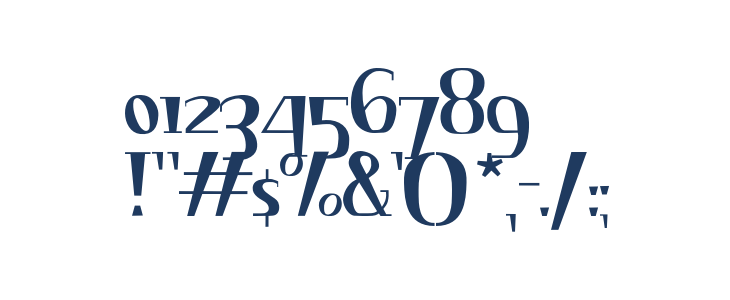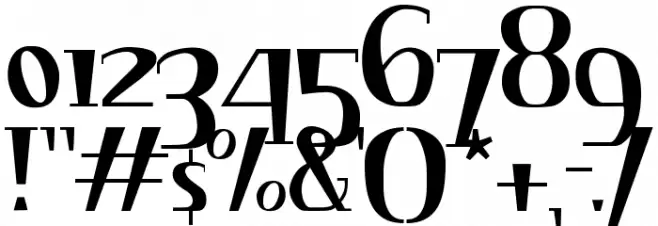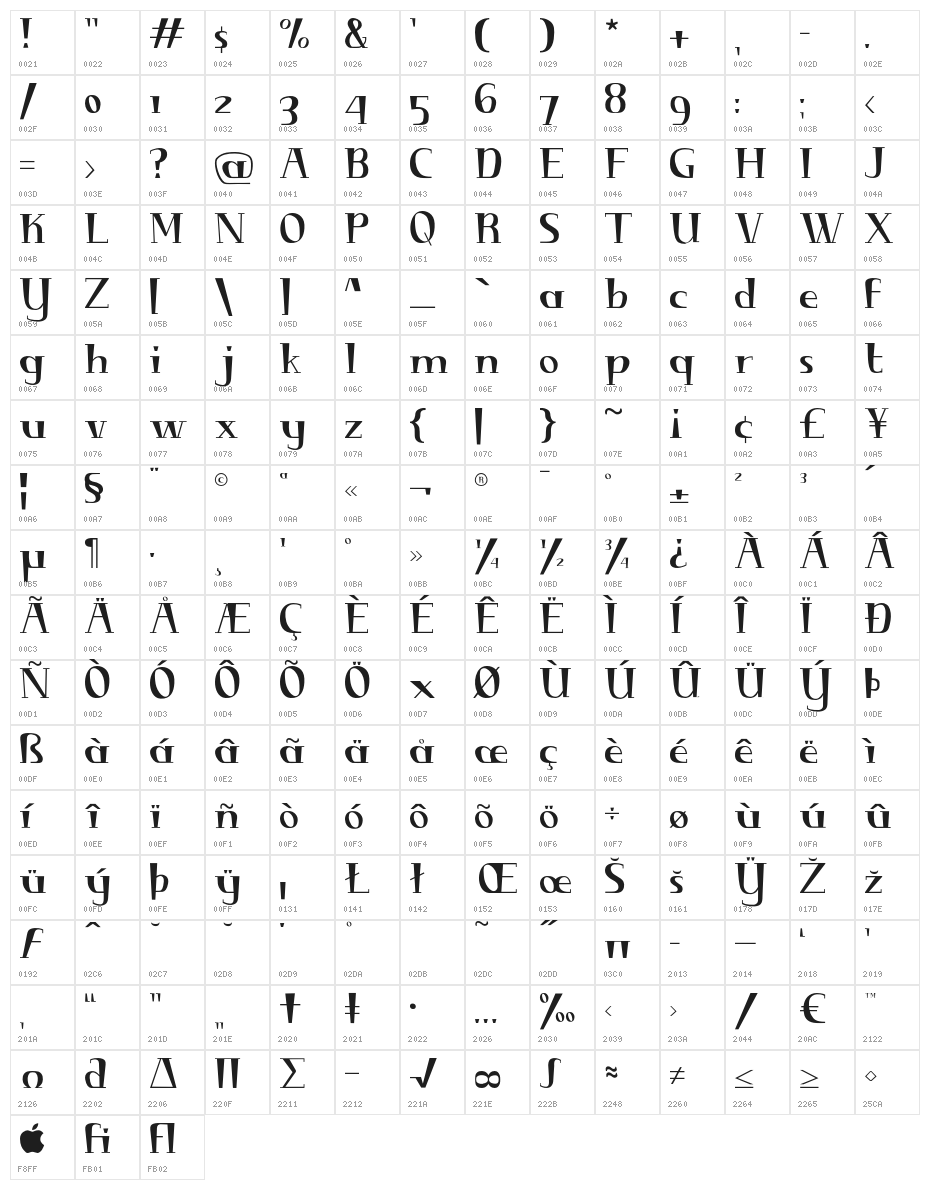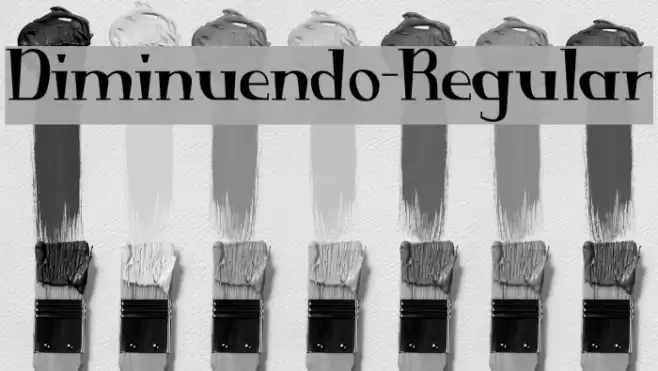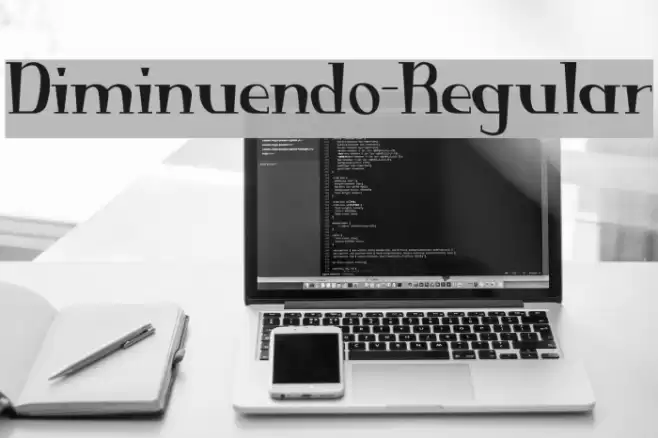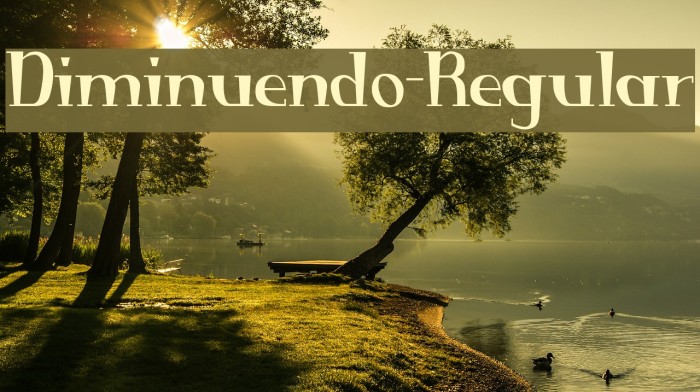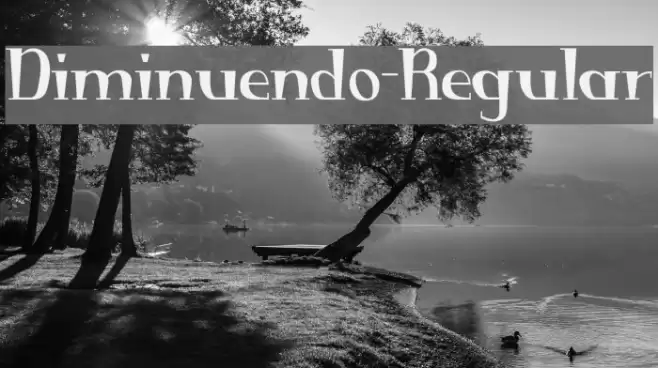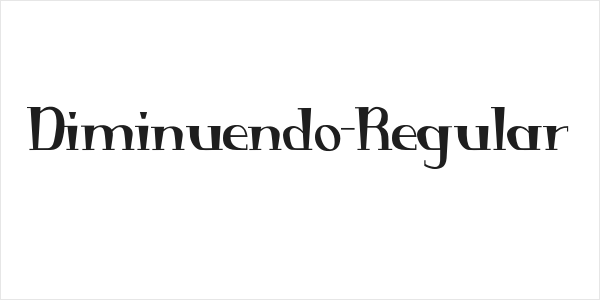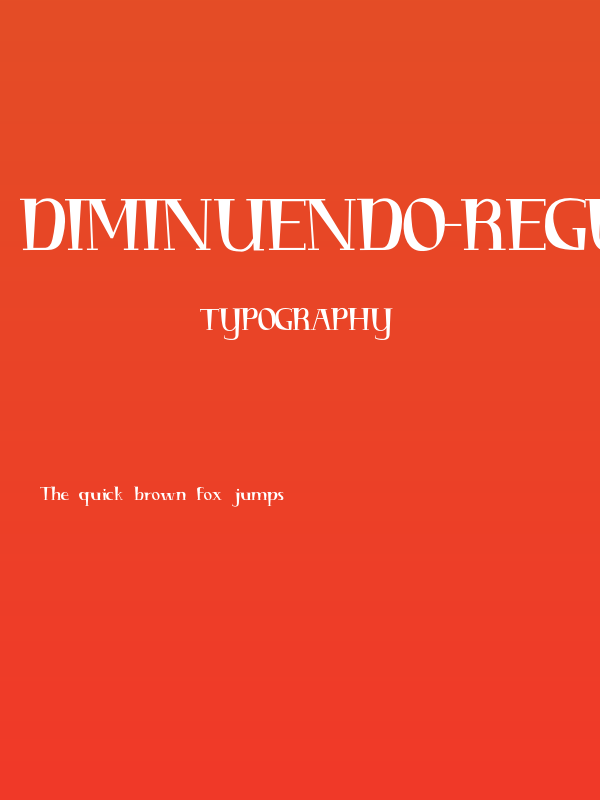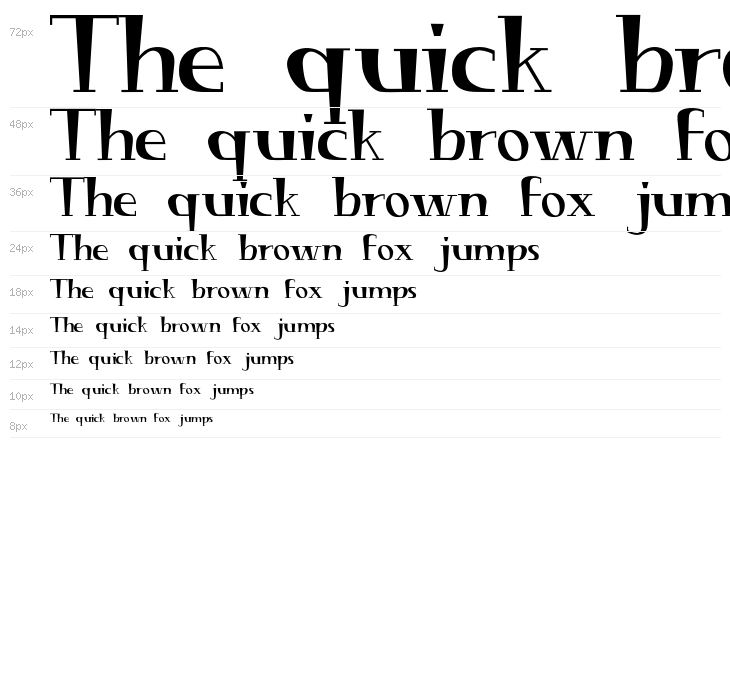
Diminuendo-Regular Font
Diminuendo-Regular Description
This font features a unique blend of modern and classic elements, characterized by its elegant and slightly whimsical design. The uppercase letters exhibit a distinct flair with varying stroke widths, creating a dynamic visual rhythm. The lowercase letters maintain a consistent style, with subtle curves and sharp angles that add to its sophisticated appearance. The numerals are bold and prominent, ensuring readability while maintaining the font's artistic integrity. Special characters are thoughtfully designed to complement the overall aesthetic, making this font versatile for various applications.
| Proposed Projects | Ideal for branding, editorial design, invitations, and artistic projects requiring a touch of elegance and creativity. |